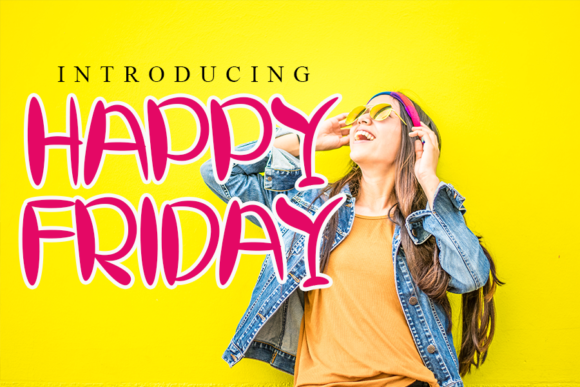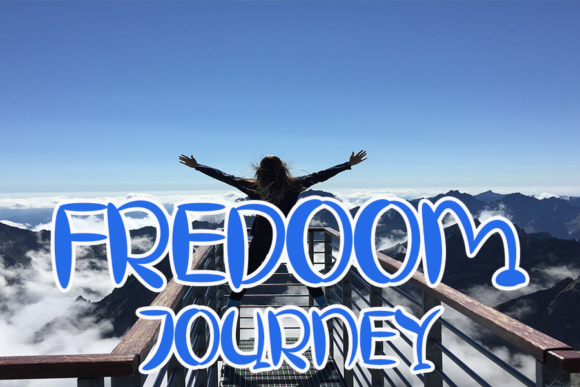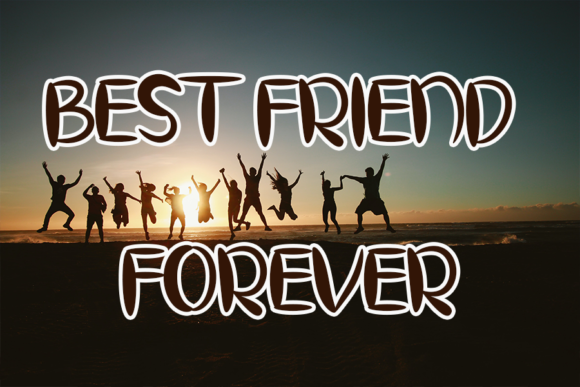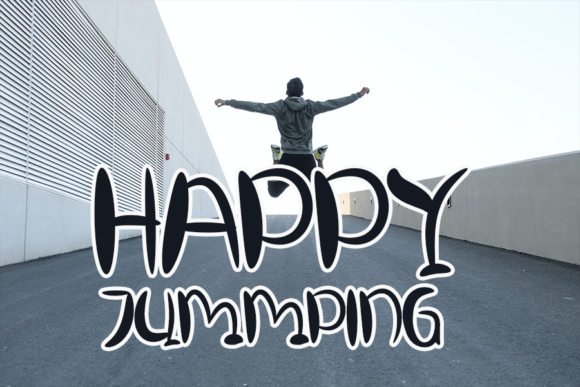
Happy Friday Font
About Happy Friday Font
Happy Friday embodies fun, quirkiness and authenticity. This enchanting handwritten font will turn any creative idea into a true standout.